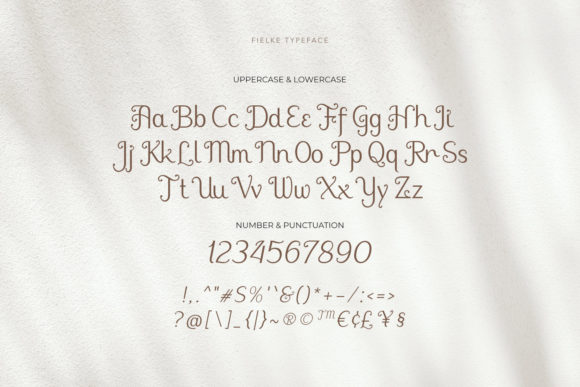
Fielke Font: A Delicate and Thin Lettered Handwritten Font
The world of typography is vast and diverse, with numerous fonts catering to various design needs. Among these, the Fielke font stands out for its unique charm and versatility. In this article, we’ll explore the characteristics, uses, and benefits of the Fielke font, and why it’s become a popular choice among designers.
What is Fielke Font?
Fielke is a delicate and thin lettered handwritten font. Its elegant and refined appearance makes it perfect for designs that require a customized touch. The font’s subtle beauty and sophisticated feel have made it a favorite among designers and crafty enthusiasts alike.
Uses of Fielke Font
Fielke font looks stunning on various design materials, including:
- Wedding invitations: Add a touch of elegance and romance to your wedding invites with Fielke font.
- Thank you cards: Express gratitude in style with beautifully designed thank you cards featuring Fielke font.
- Quotes: Make inspirational quotes even more impactful with the delicate and refined appearance of Fielke font.
- Greeting cards: Create personalized greeting cards for special occasions, such as birthdays, anniversaries, and holidays.
- Logos: Use Fielke font to create unique and memorable logos for your brand or business.
- Business cards: Stand out from the crowd with elegantly designed business cards featuring Fielke font.
Benefits of Fielke Font
The Fielke font offers several benefits, including:
- Versatility: Fielke font can be used on various design materials, from wedding invitations to logos and business cards.
- Elegance: The font’s delicate and refined appearance adds a touch of sophistication to any design.
- Customization: Fielke font allows designers to add a personalized touch to their designs, making them stand out from the crowd.
- Readability: The font’s thin lettering ensures that text remains readable, even at small sizes.
Design Tips for Using Fielke Font
To get the most out of Fielke font, consider the following design tips:
- Pair with bold fonts: Combine Fielke font with bold fonts to create visual contrast and make your design more engaging.
- Use on light backgrounds: Fielke font looks best on light backgrounds, which help to maintain its delicate appearance.
- Experiment with colors: Try out different colors to find the perfect match for your design and brand.
- Pay attention to spacing: Ensure that text is properly spaced to maintain readability and visual flow.
Font Pairing Suggestions
Fielke font can be paired with other fonts to create visually appealing combinations. Here are some suggestions:
- Open Sans: A clean and modern sans-serif font that pairs well with Fielke font’s elegance.
- Lato: A sleek and sophisticated sans-serif font that complements Fielke font’s refined appearance.
- Merriweather: A classic serif font that adds a touch of sophistication when paired with Fielke font.
In conclusion, Fielke font is a beautiful and versatile handwritten font that can elevate your designs to the next level. Its delicate and refined appearance makes it perfect for wedding invitations, thank you cards, quotes, greeting cards, logos, business cards, and more. With its numerous benefits, design flexibility, and ease of use, Fielke font is an excellent addition to any designer’s toolkit.